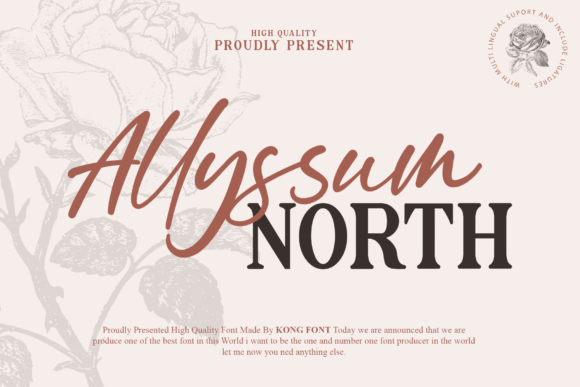
Allyssum North - Clean Handwritten Font for Quotes & Journals
Allyssum North is a decorative font with character — designed for standout display use rather than long body text. Its style gives a handcrafted or boutique feel, making it great for designs that benefit from charm, personality, and a unique visual identity. Use it to add flair to logos, packaging, invitations, signage or any creative piece where typography stands out.
Whether you’re building a brand aesthetic, crafting labels, designing event stationery, or making art prints, Allyssum North delivers a distinctive typographic voice. It’s ideal for projects that need a decorative, impactful font rather than a neutral standard typeface.
- Graphic designers wanting a decorative font for logos or branding
- Crafters and small‑business owners creating packaging, product labels, or handmade goods
- Etsy / POD shop owners needing a unique font for product titles, packaging text, or branding
- Designers of invitations, greeting cards, signage, or boutique‑style stationery
- Social media or digital‑art creators wanting a standout font for headers, quotes, banners, or web graphics
- Brand logos, wordmarks, and boutique identity materials
- Product packaging and labels — ideal for handmade goods, boutique products
- Invitations, greeting cards, greeting‑card printables, stationery, tags
- Posters, wall art prints, home décor prints
- Social media graphics, banners, web headers (after webfont conversion if needed)
- Signage, tags, labels for small businesses, crafts, handmade goods
- Full Latin character set (letters, numbers, punctuation, basic glyphs)
- Display‑ready typeface optimized for headings, logos, labels, and decorative text
- Distinctive decorative style — helps your designs stand out with character and charm
- Ideal for boutique, handmade, artisanal, or lifestyle‑brand aesthetics
- Versatile for printables, packaging, invitations, social media graphics, and more
- Great way to elevate branding and packaging for small businesses, handmade brands, or Etsy/POD shops
Q: Is this font suitable for body text or long paragraphs?
A: No — Allyssum North is a decorative display font best used for headings, logos, labels, titles, packaging, signage or other decorative text rather than long body copy. -
| Feature | Allyssum North | Generic Decorative Display Font A | Generic Clean Sans‑Serif Font B |
| Font Style | Decorative display — boutique / handmade / decorative vibe | Display serif or decorative serif — classic elegance or vintage feel | Clean sans‑serif — minimal, modern, neutral |
| Best Use | Packaging, labels, logos, invitations, signage, decorative text | Elegant branding, editorial headings, vintage‑style packaging, logos | Web headers, modern branding, minimalistic design, body text |
| Readability for small size / body text | Lower — best at medium to large display size | Moderate — sometimes ok for short copy if size sufficient | High — well suited for body text and UI use |
| Visual Vibe | Artisanal / boutique / handcrafted / decorative | Classic, elegant, sometimes vintage‑style depending on serif | Modern, minimal, clean, neutral |